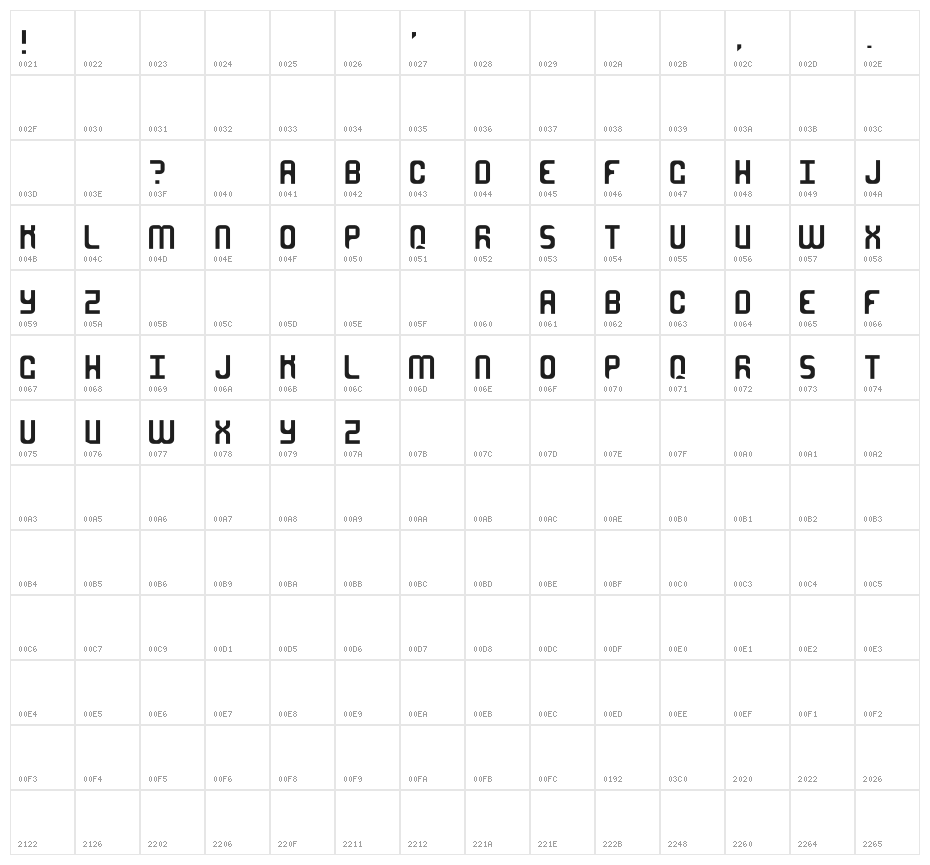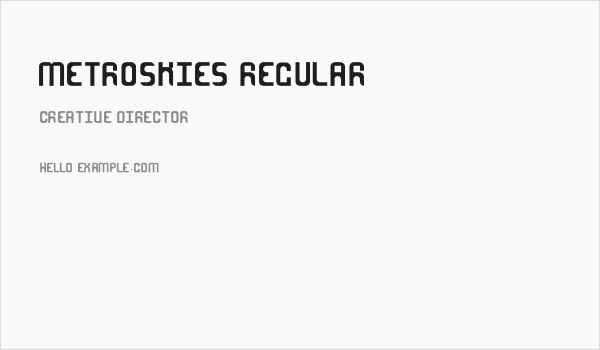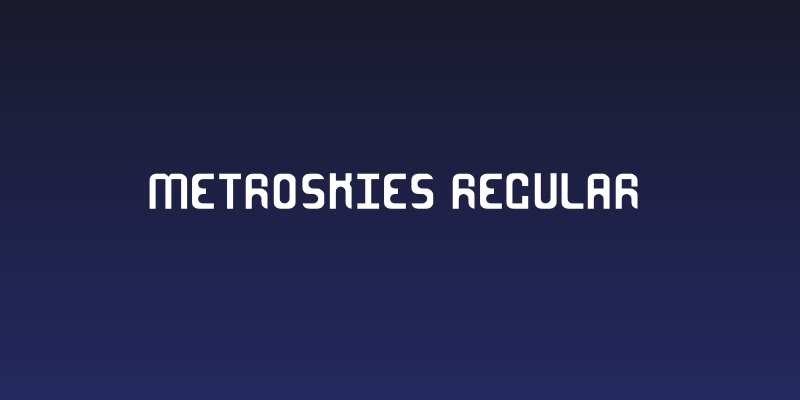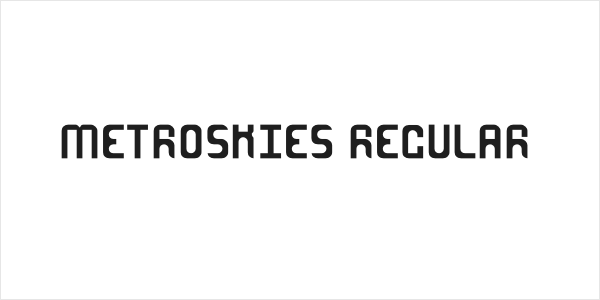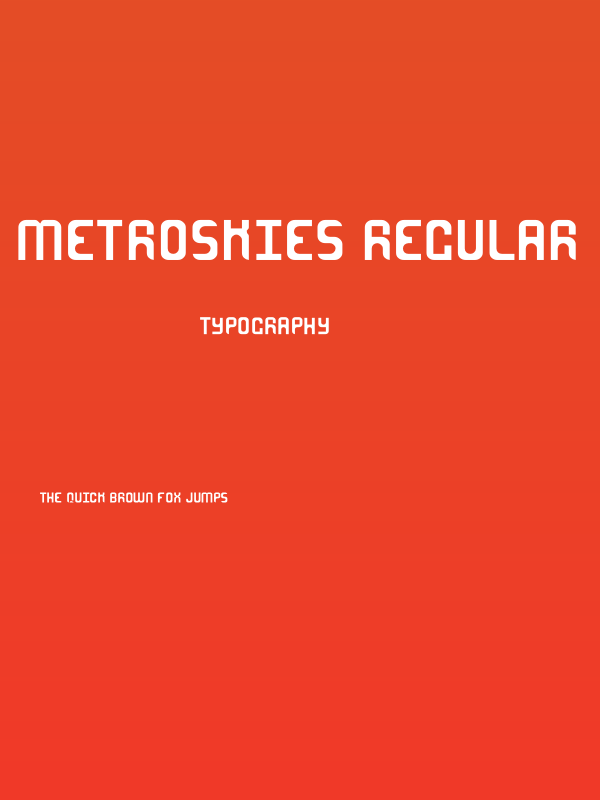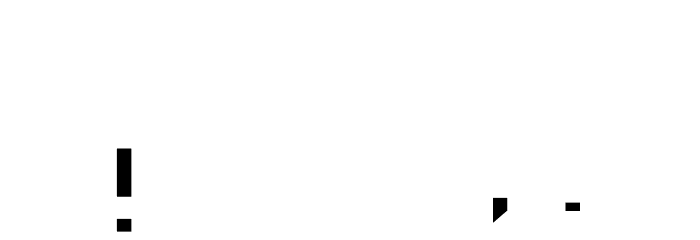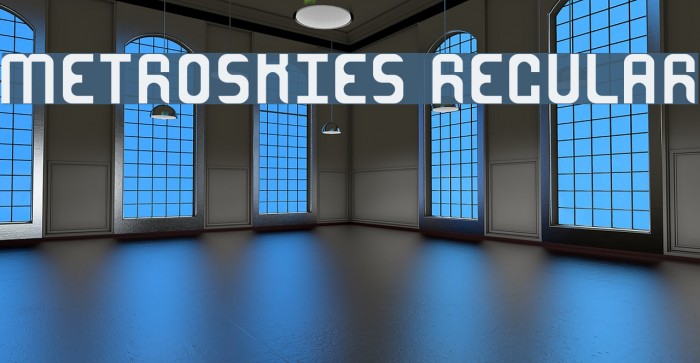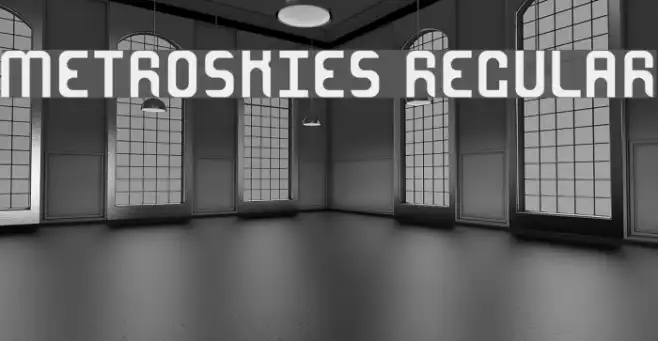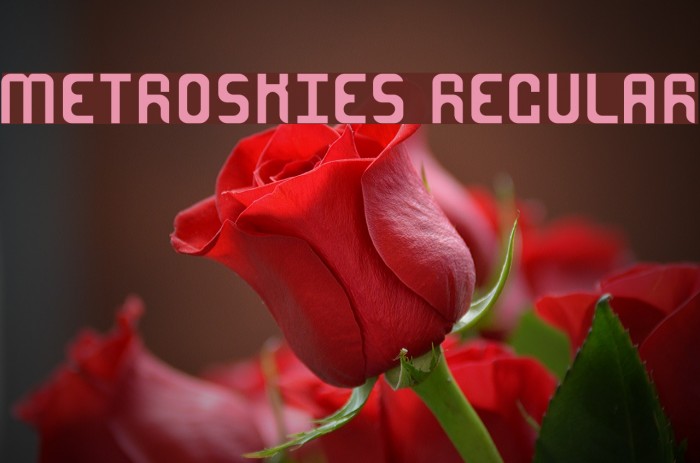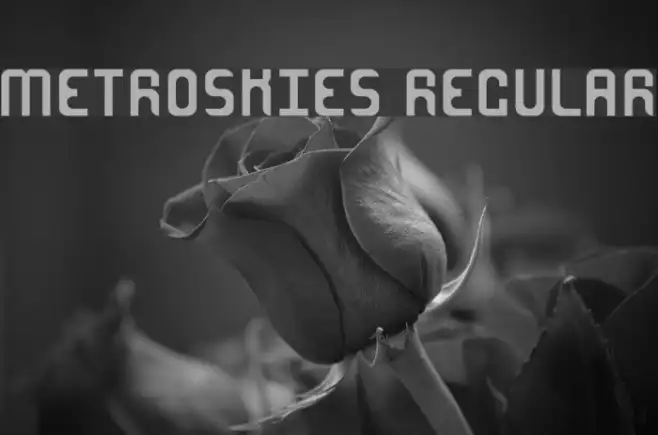
MetroSkies-Regular Font
MetroSkies-Regular Description
This font features a modern and geometric design with a strong emphasis on clean lines and rounded edges. The uppercase letters are bold and structured, creating a sense of stability and strength. The lowercase letters maintain the same geometric style, ensuring consistency throughout the typeface. The numbers are clear and legible, making them suitable for various applications. Special characters are designed to complement the overall aesthetic, with a focus on simplicity and functionality. This font is ideal for projects that require a contemporary and professional look.
| Use Case | Headlines, Logos, Digital Interfaces |
| Proposed Projects | Ideal for branding, signage, digital interfaces, and editorial design. |